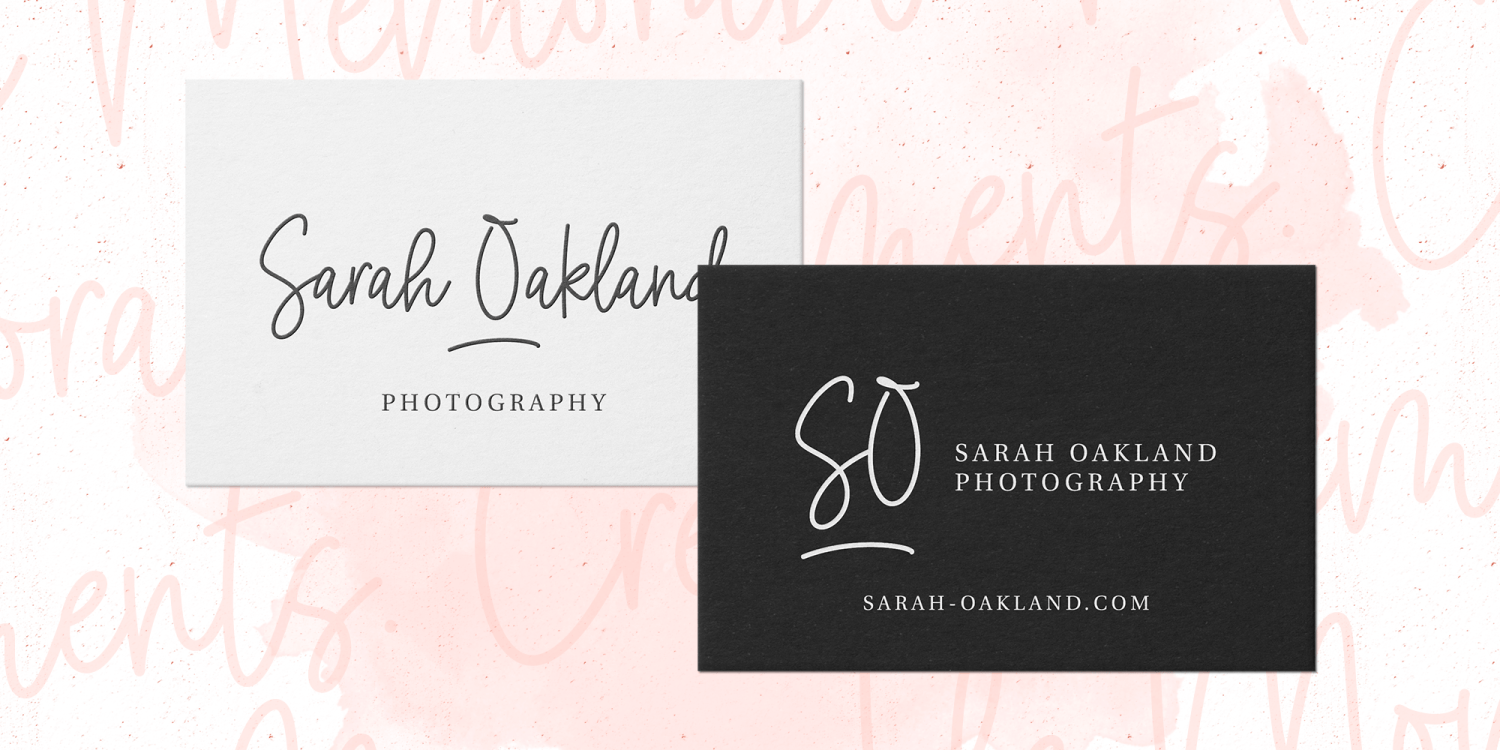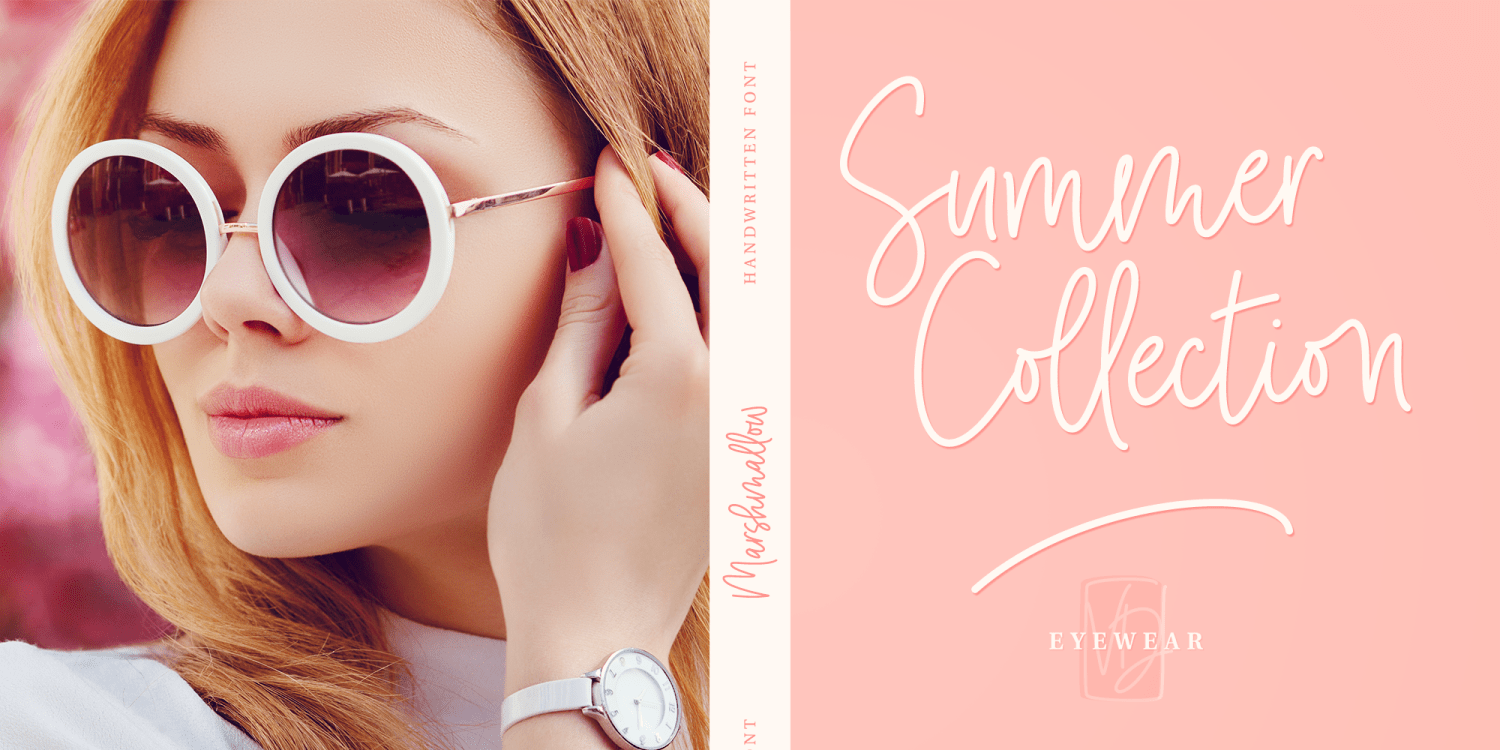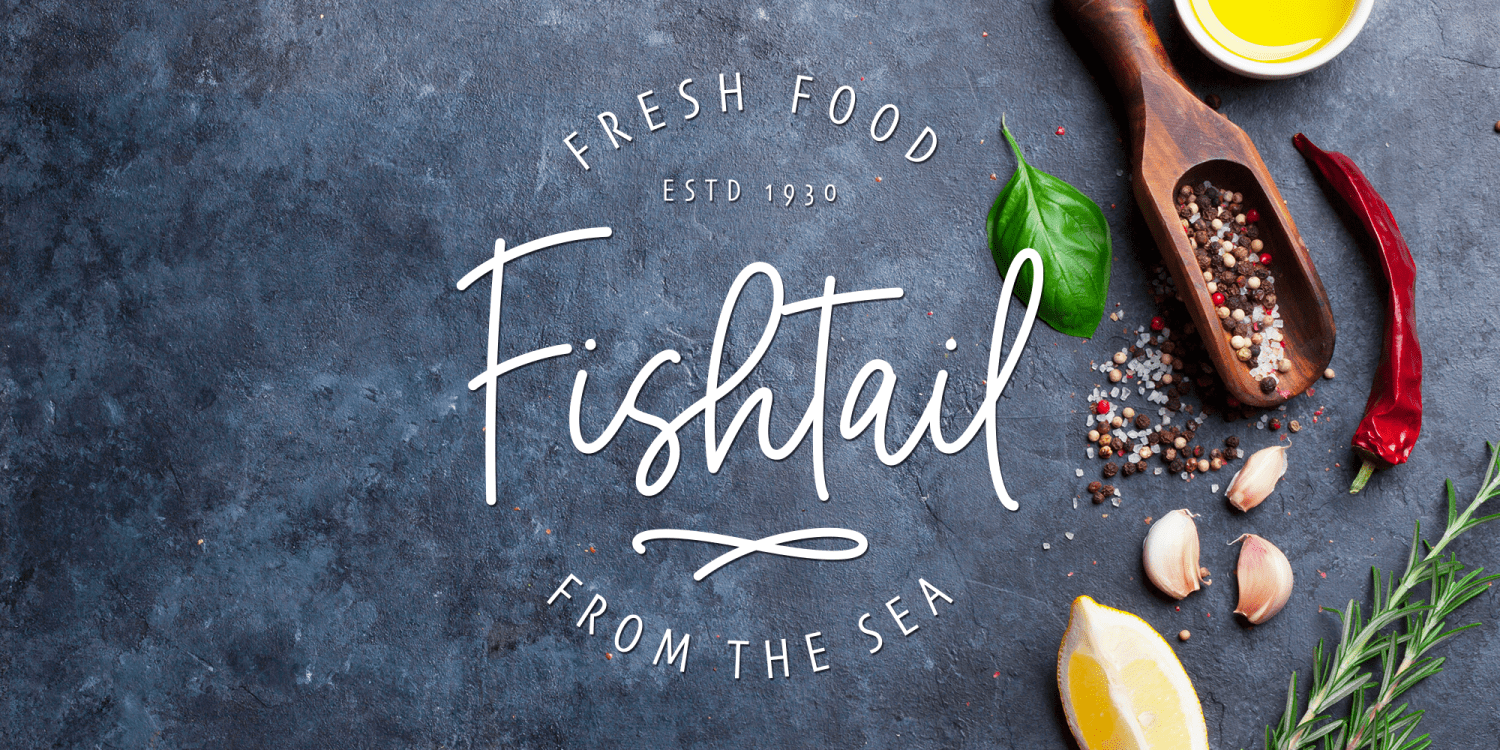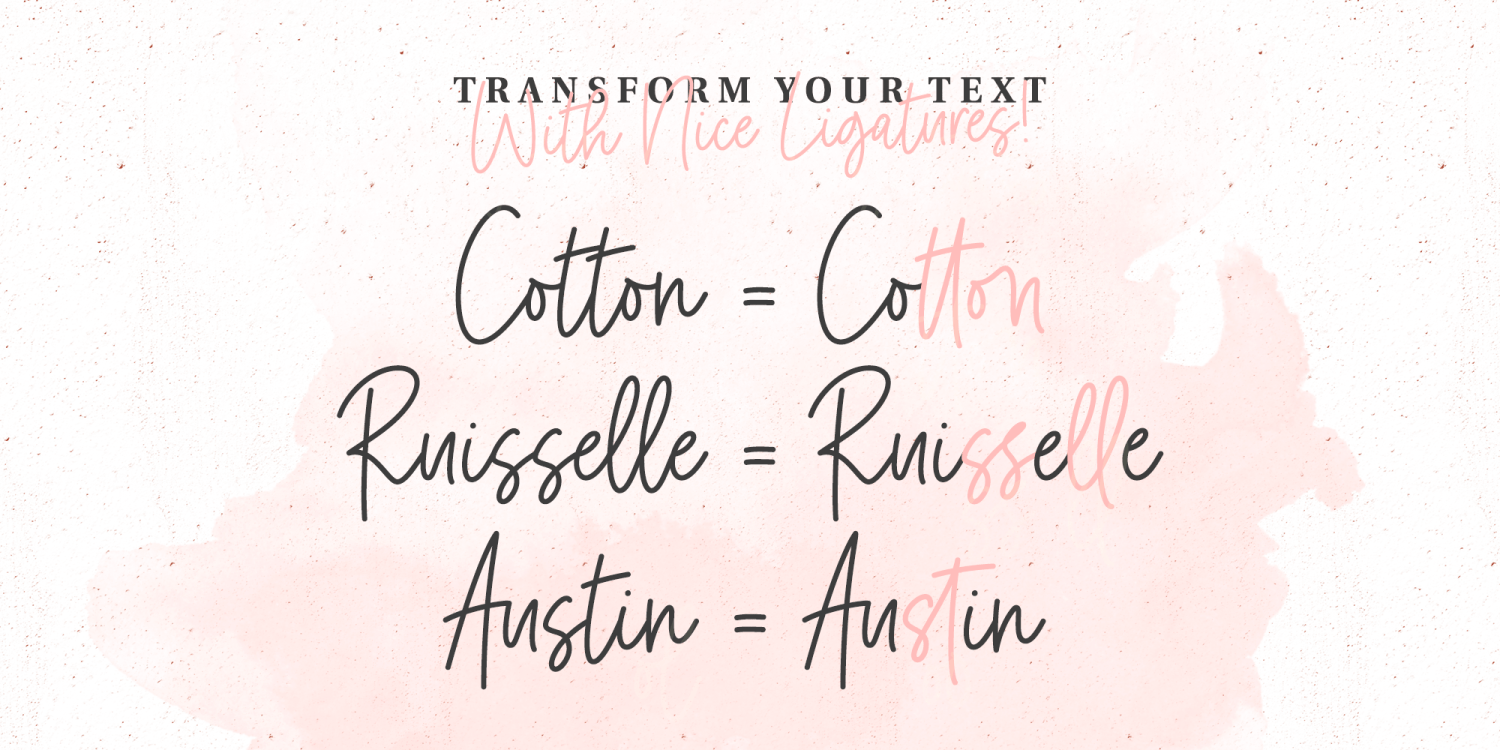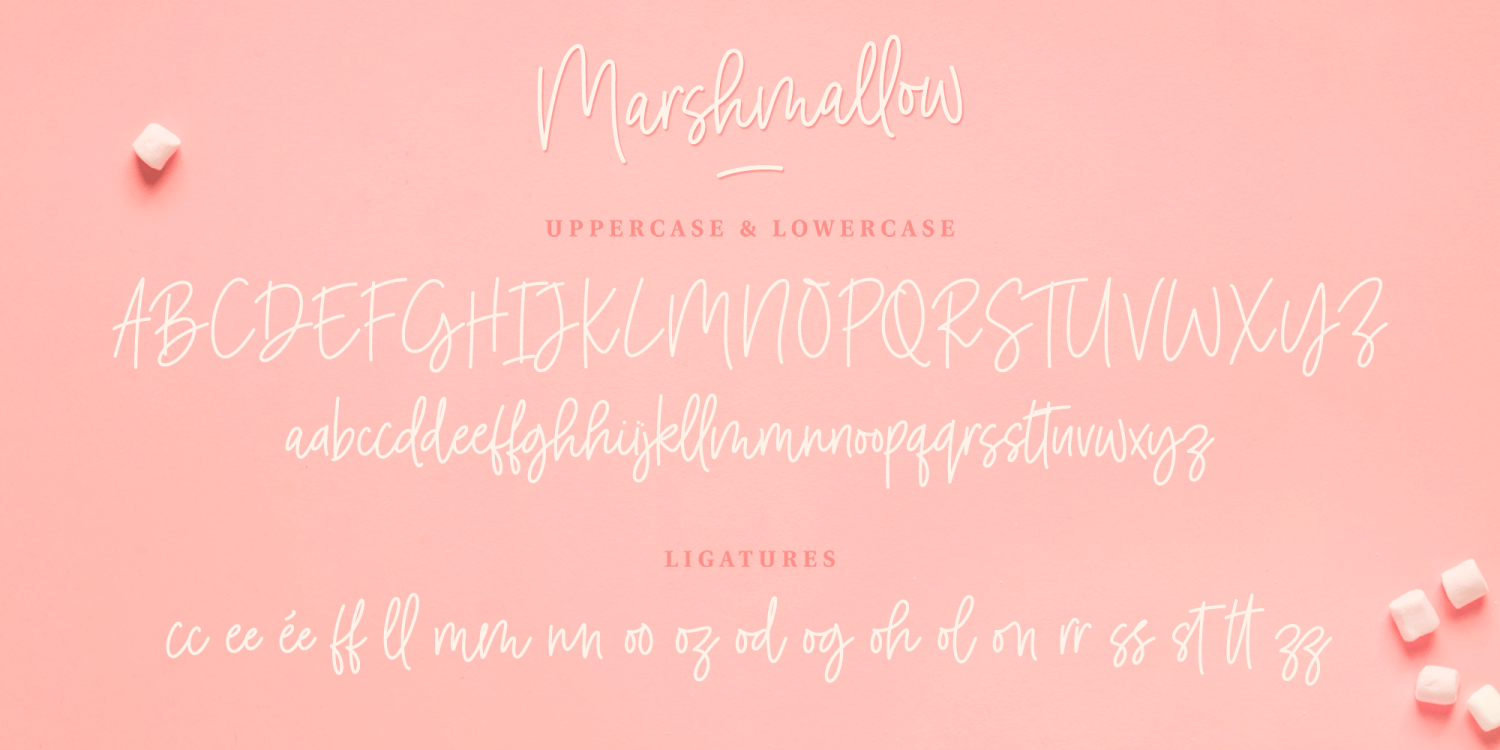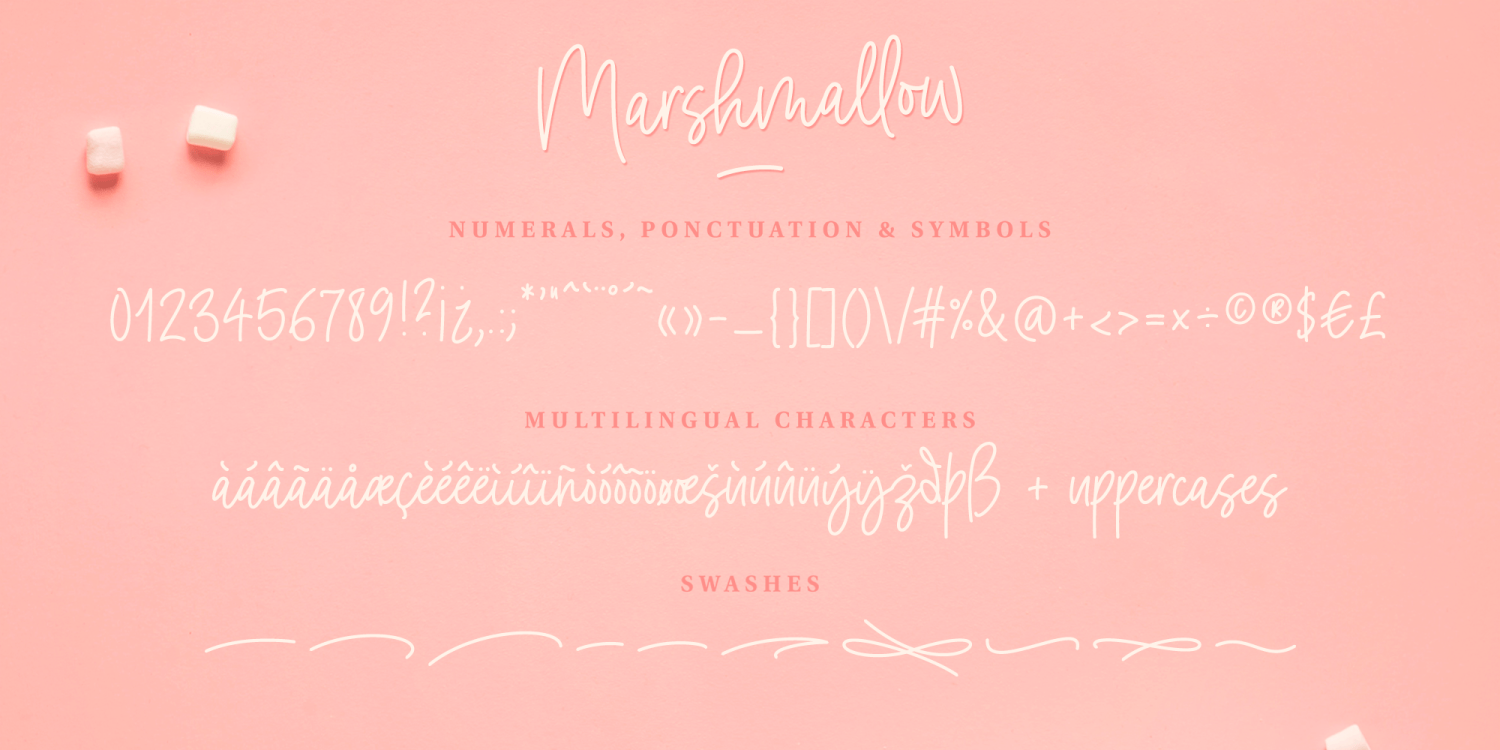
Marshmallow Handwritten
Font Family by The Paper Town
Introducing Marshmallow a bouncy and clean handwritten font featuring alternates, nice ligatures and swashes.
Inspired by a custom logo I made for a branding project Marshmallow has been created with the thought of giving a fresh, readable signature style font.
You can use it for various projects such as branding design, blog headers, signatures, quotes, fashion apparel, business card, stationery and more...
Some bonus swashes included as a separated font allow you to add a nice finishing touch to your text.
• Marshmallow : contains uppercase and lowercase, numerals, ponctuations and multilingual support for western and central european languages.
• Marshmallow-Swashes : To access the swashes install as a separate font and type any character between a-j and there you have it!